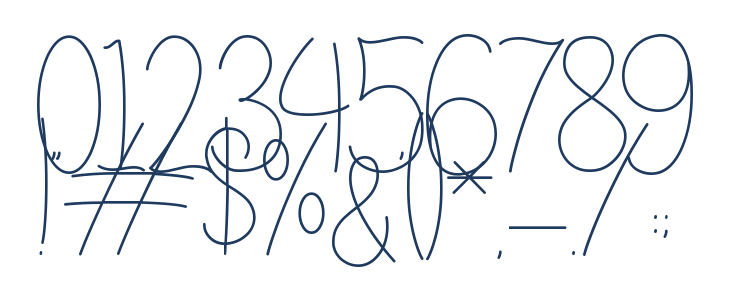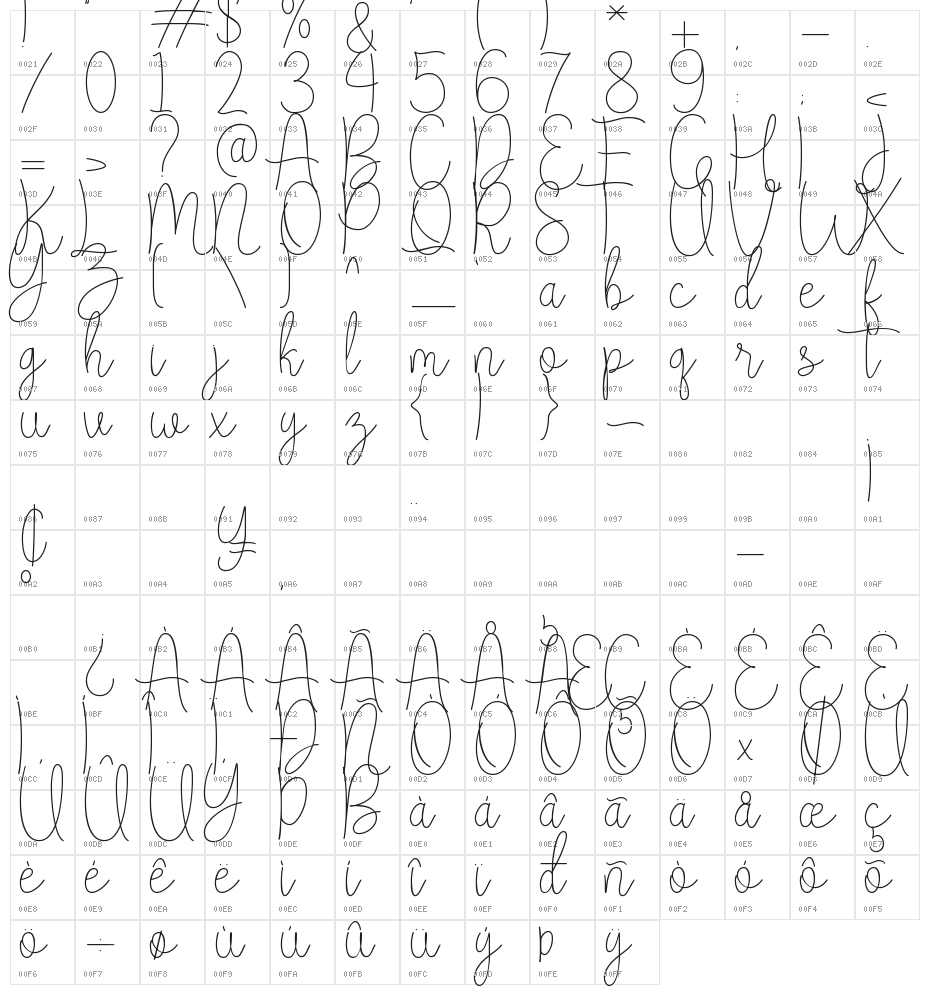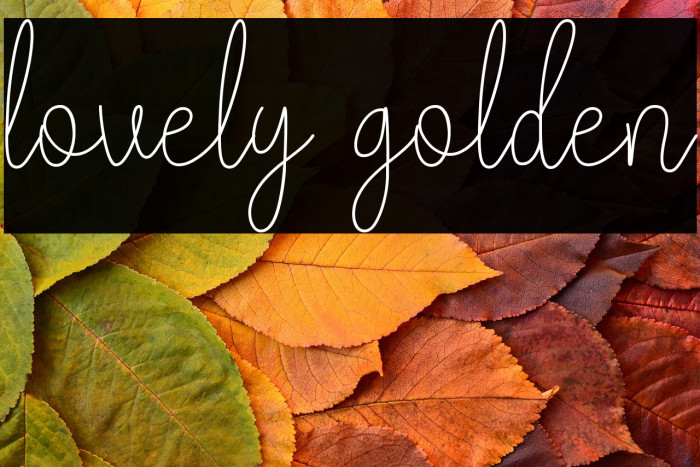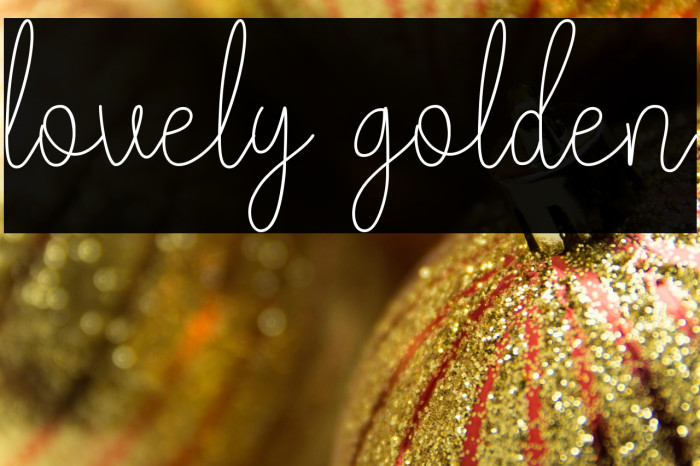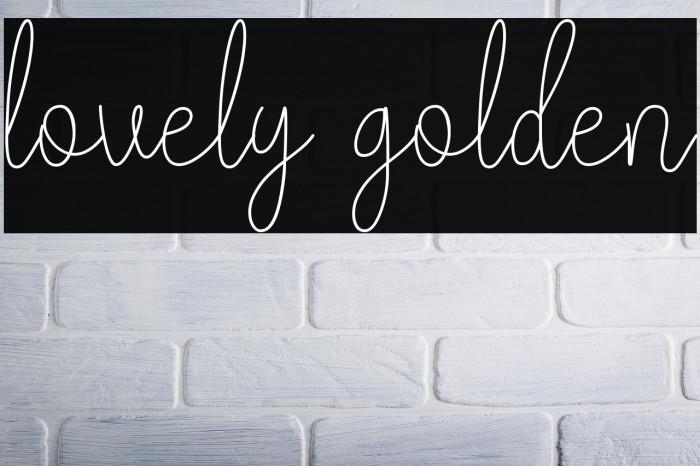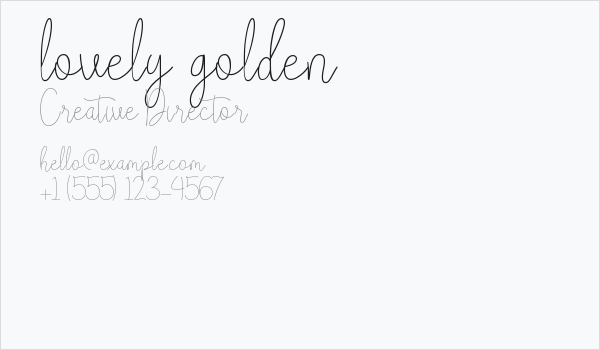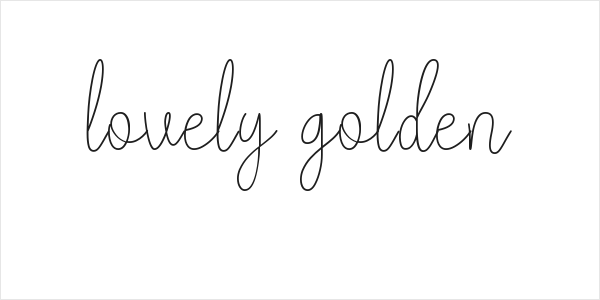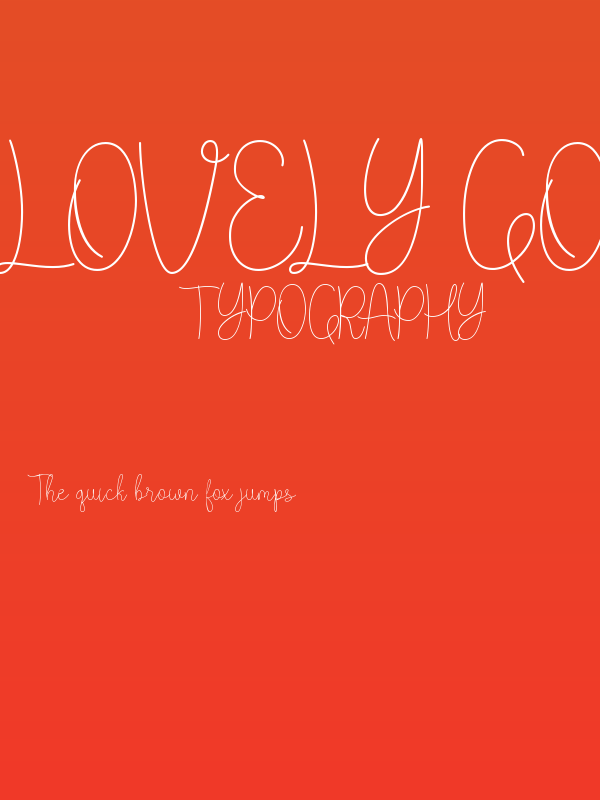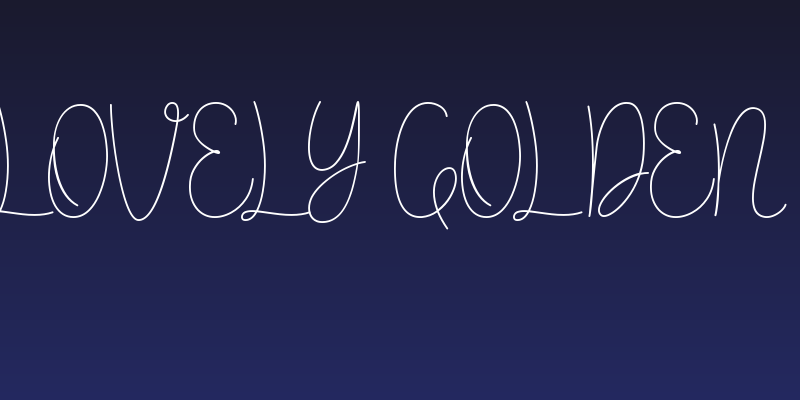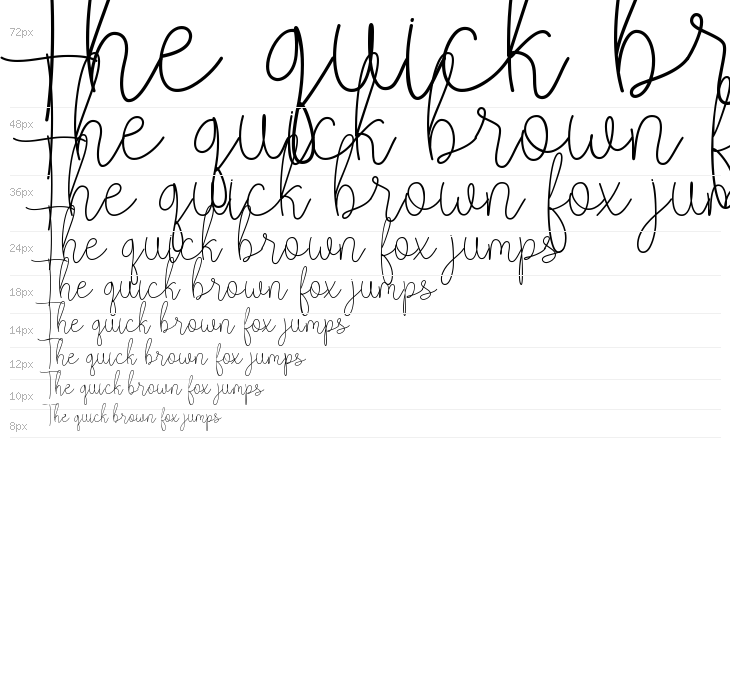
lovely golden Font
lovely golden Description
This font features a delicate and flowing script style, characterized by its elegant and elongated letterforms. The strokes are thin and consistent, giving it a graceful and airy appearance. The uppercase letters are particularly ornate, with loops and swirls that add a touch of sophistication. The lowercase letters maintain a cohesive style, with smooth curves and a slight slant that enhances the handwritten feel. The numerals and special characters are designed to match the overall aesthetic, ensuring a harmonious look across all elements. This font is ideal for projects that require a personal and refined touch.
Overall StyleElegant, Handwritten
Use CaseLogos, Invitations, Decorative text
Proposed ProjectsIdeal for wedding invitations, greeting cards, branding, and elegant packaging.